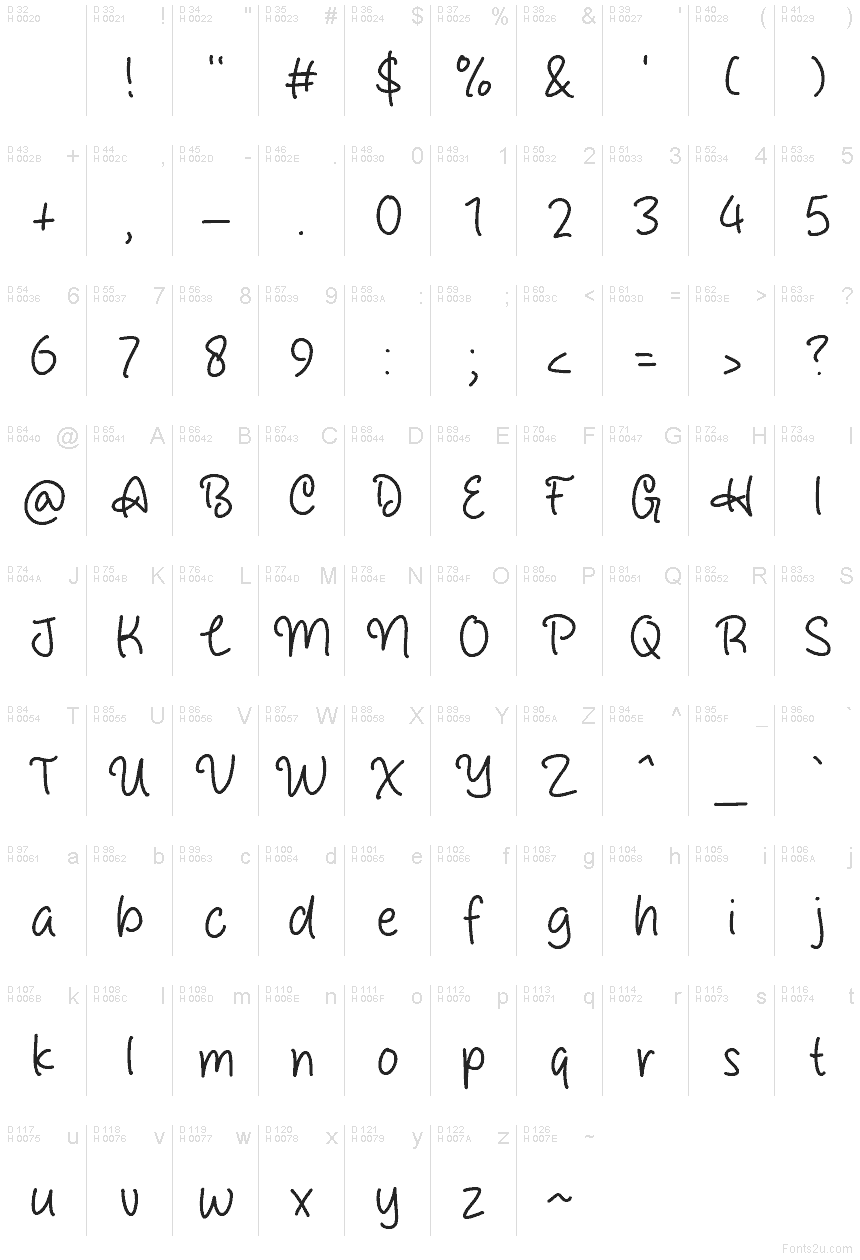
Winter Glowing
Winter Glowing font by Origin Type is a free handwritten typeface that captures the cozy energy of winter nights and twinkling lights. Its tall, rounded letters, gentle bounce, and smooth inky curves feel like they were written with a favorite gel pen on thick, snowy-white paper. The rhythm is playful but still easy to read, giving you that warm, homemade look without sacrificing clarity.
Using Winter Glowing, this free font shines on holiday cards, seasonal social posts, gift tags, kids’ party invitations, classroom posters, and whimsical packaging. The spacing keeps things airy and friendly, so your words feel light and approachable rather than cramped. Try pairing Winter Glowing with a clean sans serif for body text and let this handwritten typeface handle the headlines at slightly larger sizes to keep that charming, hand-crafted glow.